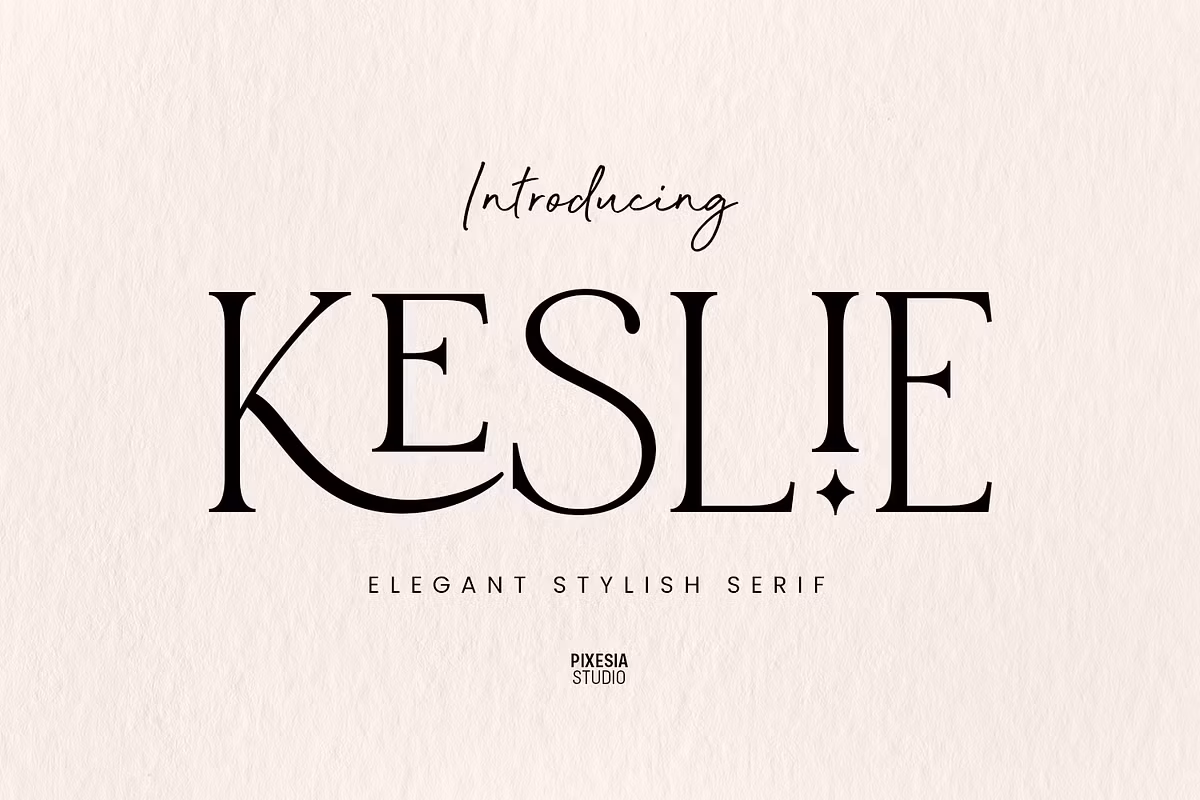
Keslie - Elegant Stylish Serif Font Free Download is a sophisticated and refined serif typeface that combines classic elegance with modern style. Perfect for high-end branding, luxury products, editorial design, invitations, and fashion-related projects, Keslie brings an air of grace and professionalism to your typography.
With its clean lines, timeless letterforms, and beautiful details, Keslie is ideal for upscale designs where elegance and readability are key. Whether you're designing a fashion brand, a luxury magazine, or a chic wedding invitation, this font adds a touch of class and style to your work.